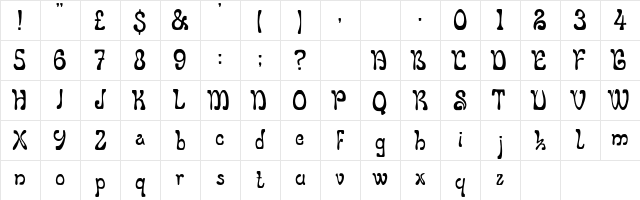
LeGolf Regular
Design Context for LeGolf
LeGolf is a composed and adaptable typeface that performs quietly and consistently across a wide range of design contexts.